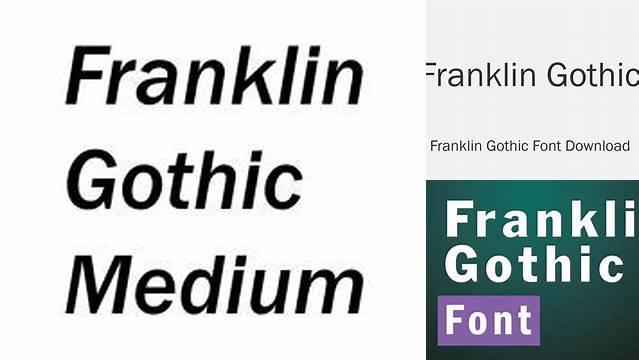
Hey guys, are you looking for a classic font that's both versatile and stylish? Well, look no further because you can get the Franklin Gothic Medium font free download right now! This font is a staple in design, and it's used everywhere, from websites to print materials. It's a sans-serif font that exudes a sense of strength and modernity, making it a great choice for various projects. In this guide, we'll dive deep into everything you need to know about the Franklin Gothic Medium font, including where to get it, how to use it, and why it's such a beloved choice for designers worldwide. So, let's jump right in and get you set up with this awesome font!
H2: Franklin Gothic Medium Font: A Deep Dive
Alright, let's get into the nitty-gritty of the Franklin Gothic Medium font free download. This font is more than just letters on a screen; it's a piece of design history. Created by Morris Fuller Benton in 1904, it quickly became a favorite for its clean lines and readability. The 'Medium' style is one of the many weights available in the Franklin Gothic family, sitting right in the sweet spot for balance and usability. The font's structure is based on a geometric design, featuring a monoline structure that is both strong and sophisticated. Its unique characteristics make it incredibly versatile. You'll find it used in headlines, body text, and even logos. If you haven’t worked with this font before, you might be missing out on a hidden gem in your design arsenal. Finding the Franklin Gothic Medium font free download opens up a world of possibilities. Plus, its easy readability across various applications makes it a must-have. When you are in the process of choosing the right font, make sure this font is on your list, you won't be disappointed.
H3: The History and Evolution of Franklin Gothic Medium
Let's talk about the history, shall we? The journey of the Franklin Gothic Medium font free download began in the early 20th century. Morris Fuller Benton, a celebrated American typeface designer, initially created the Franklin Gothic family for the American Type Founders (ATF). The design was influenced by the industrial era, reflecting a sense of robustness and straightforwardness that was very fitting for the time. Over the years, the font has evolved. It has been adapted and reinterpreted across various digital platforms. Despite the numerous variations and advancements in technology, the original essence of Franklin Gothic Medium remains unchanged. It is still a font that is favored by many designers. Its consistent use across different media over a century speaks volumes about its timeless appeal. Understanding its historical context can enhance your appreciation and inspire your creative uses. To experience its full potential, begin with a Franklin Gothic Medium font free download and experiment! Its evolution is a story of design ingenuity, adapting to changes without losing its core identity. The font's popularity has never faded and is still one of the top fonts used today.
H2: Utilizing Franklin Gothic Medium in Design Projects
Now that you have the Franklin Gothic Medium font free download installed, it's time to use it! This font is incredibly versatile, suitable for various design projects. It works great for both print and digital media, and its readability makes it perfect for long blocks of text. Because of its clean and modern design, Franklin Gothic Medium works well in headlines, subheadings, and body text. It can bring your content to life, and helps you to attract your readers. The font's inherent strength and clarity mean it's also great for branding and logo design. It conveys a sense of professionalism and reliability. Experiment with different weights (like Bold or Italic, which might be available with your Franklin Gothic Medium font free download) to add emphasis. In terms of applications, you can use the font in everything from websites and brochures to presentations and social media graphics. Make sure to use the font in a way that complements your overall design. The simplicity of the font means it can blend seamlessly with other design elements, giving you creative flexibility. You can start by looking at how professional designers have used it to create stunning projects. Make sure you are ready to use the Franklin Gothic Medium font in all your projects, and make your designs stand out.
H3: Best Practices for Using Franklin Gothic Medium in Your Designs
So, you've got the Franklin Gothic Medium font free download and are ready to create some amazing designs. To use this font effectively, there are a few best practices to keep in mind. First, consider your project's overall tone and purpose. Franklin Gothic Medium is versatile but best suited for designs that require a modern, clean, and professional look. Experiment with different font sizes and weights to create visual hierarchy. For headlines, use bolder weights and larger sizes to grab attention. For body text, use the regular or medium weight to ensure readability. Good typography is crucial. Pay attention to kerning (the space between letters) and leading (the space between lines). Make sure the text is readable and visually appealing. Make sure you are using this font for projects, such as corporate brochures or website headers. If you are using this font, make sure that you use it for a project that matches its attributes, that creates a great final product. And with the Franklin Gothic Medium font, you can create stunning and professional projects.
H3: Gathering Inspiration from Successful Designs and Projects
To get inspiration, look at other designs. Many professional projects use the Franklin Gothic Medium font free download. Explore how different companies use the font to create unique brands. Look at the logos and branding materials, and use the font for your projects. Use these designs as inspiration. Focus on the specific examples you find. Find out what makes these designs effective. You can learn many techniques to use the font in your projects. Using the Franklin Gothic Medium font will lead you to success.